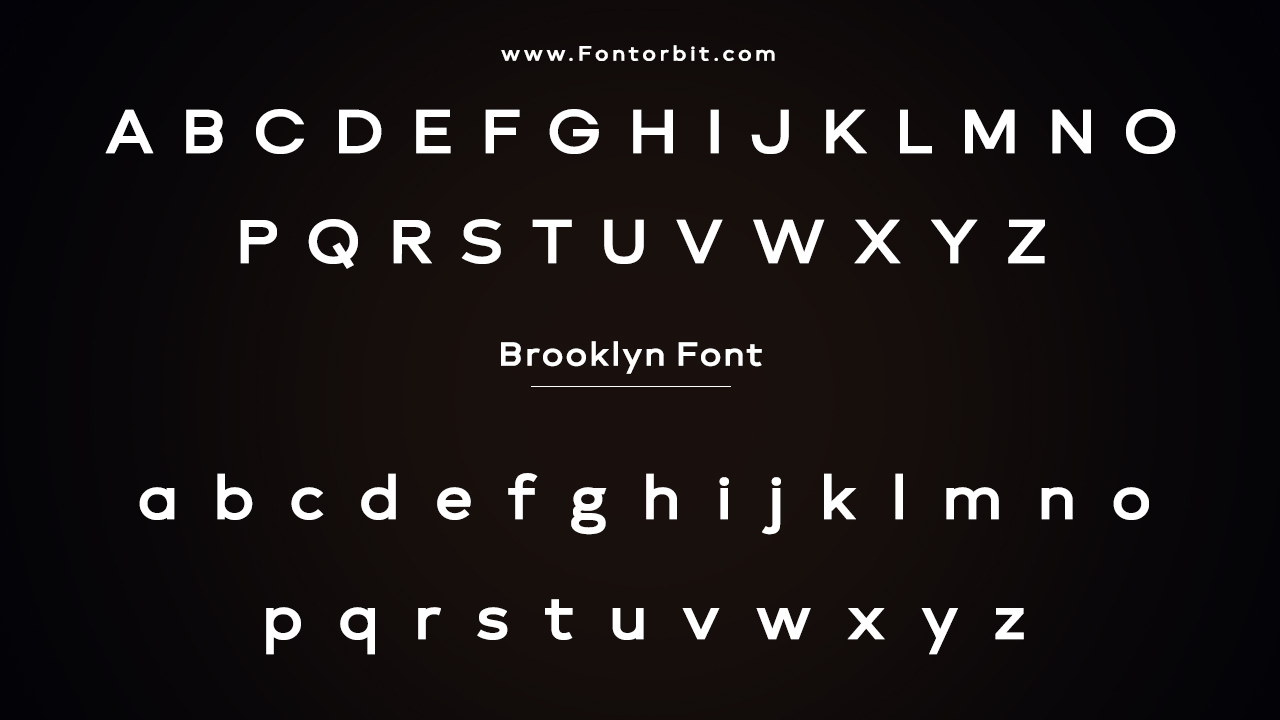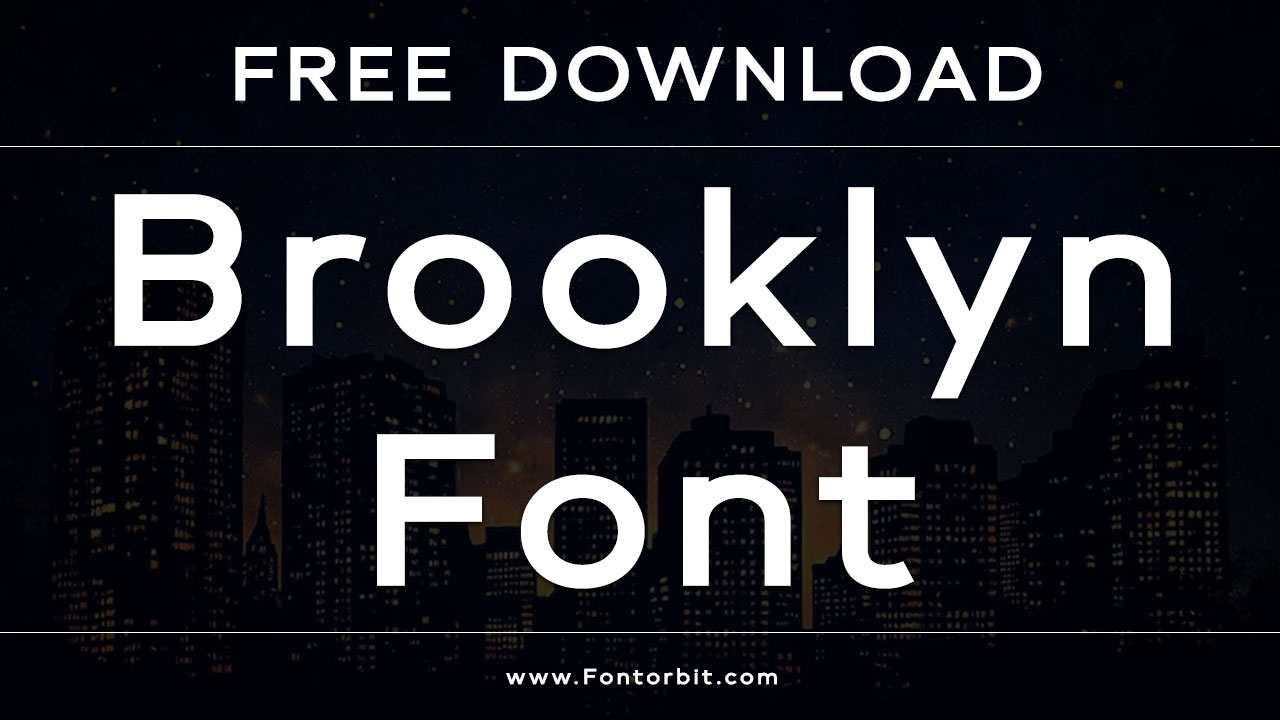
The Brooklyn font is a modern, minimal geometric sans-serif typeface designed by Brittney Murphy and published around 2017. Known for its clean lines and simple structure, Brooklyn is ideal for professional and creative applications. The font family includes regular and bold weights, offering flexibility in design projects.
The Brooklyn font family is minimal in design but offers variations to suit different design needs.
Brooklyn is versatile and can be used for a wide range of creative and professional projects. It shines in environments that require a modern, minimalistic, yet striking appearance.
Use Brooklyn for:
- Website headings
- Digital advertisements
- Branding materials
Brooklyn is an excellent choice if you’re seeking a minimal yet distinctive typeface that brings a modern edge to your design. Its bold, geometric style combined with its horizontal emphasis allows it to stand out without being overwhelming. This makes Brooklyn a go-to option for designers aiming for clean, modern designs.
2.What Styles Does The Brooklyn Family Include?
Brooklyn is available in regular, bold, and italic styles, which are suitable for most design projects.
3.How Does Brooklyn Compare To Montserrat?
Brooklyn has a more geometric, structured feel, whereas Montserrat is more fluid and softer in appearance.
4.What Design Projects Work Best With Brooklyn?
Projects such as logos, branding materials, and digital ads benefit from Brooklyn’s bold and clean design.
5.Is Brooklyn Suitable For Body Text?
Brooklyn is best used for headings and short text due to its bold and structured appearance.